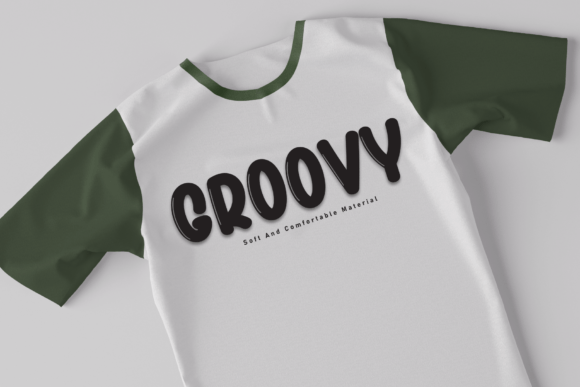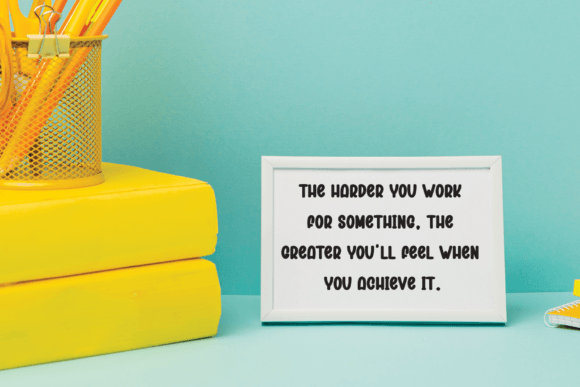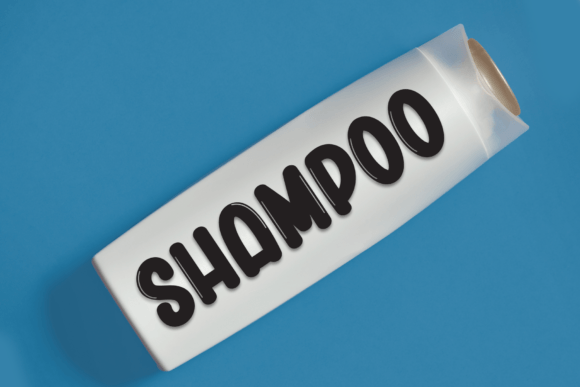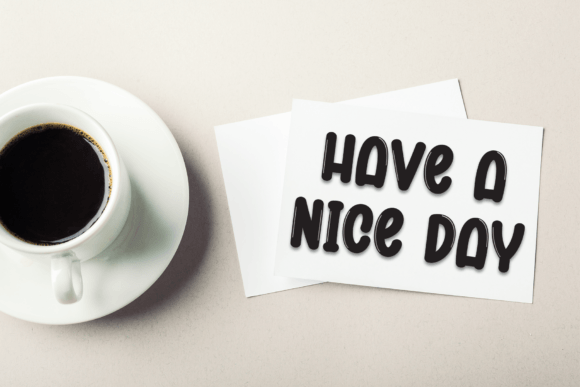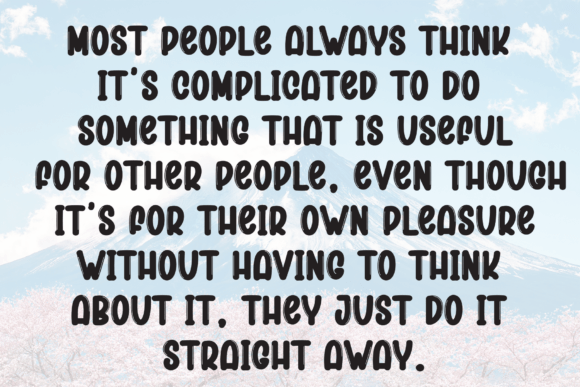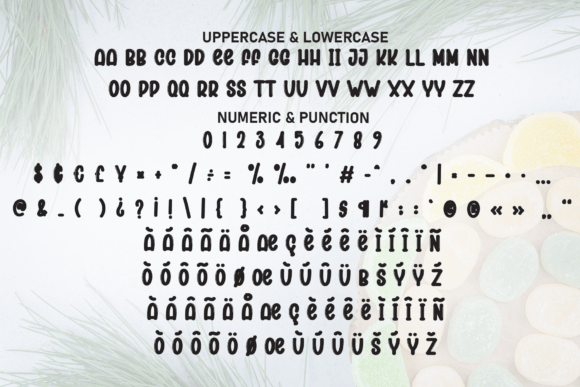
Candy Winter Font: Add a Spark of Fun to Your Designs
Are you looking for a font that can add a dash of fun and personality to your designs? Look no further than Candy Winter Font! This fun and shiny display font is perfect for making your designs stand out, whether you’re creating posters, cards, or party invitations. In this article, we’ll take a closer look at Candy Winter Font and explore its features, benefits, and uses.
What is Candy Winter Font?
Candy Winter Font is a bold and eye-catching display font that is designed to sparkle with personality. Its fun and shiny letters are perfect for grabbing attention and adding a touch of whimsy to your designs. The font is ideal for use in a variety of design projects, from posters and flyers to cards and invitations.
Key Features of Candy Winter Font
- Bold and eye-catching letters: Candy Winter Font features bold and eye-catching letters that are sure to grab attention.
- Fun and shiny design: The font has a fun and shiny design that adds a touch of personality to your designs.
- Perfect for display purposes: Candy Winter Font is designed specifically for display purposes, making it perfect for use in posters, flyers, and other eye-catching designs.
- Easily readable: Despite its bold and decorative design, Candy Winter Font is easily readable, making it perfect for use in a variety of design projects.
Benefits of Using Candy Winter Font
There are many benefits to using Candy Winter Font in your designs. Here are just a few:
- Adds personality to your designs: Candy Winter Font adds a touch of personality and whimsy to your designs, making them stand out from the crowd.
- Perfect for festive designs: The font’s fun and shiny design makes it perfect for use in festive designs, such as holiday cards and party invitations.
- Easy to use: Candy Winter Font is easy to use and can be easily integrated into your design projects.
- Versatile: The font is versatile and can be used in a variety of design projects, from posters and flyers to cards and invitations.
Uses of Candy Winter Font
Candy Winter Font is a versatile font that can be used in a variety of design projects. Here are just a few ideas:
- Posters and flyers: Use Candy Winter Font to create eye-catching posters and flyers that grab attention.
- Cards and invitations: The font is perfect for use in cards and invitations, adding a touch of personality and whimsy to your designs.
- Party decorations: Use Candy Winter Font to create festive party decorations, such as banners and garlands.
- Social media graphics: The font is perfect for use in social media graphics, such as Facebook posts and Instagram stories.
Tips for Using Candy Winter Font
Here are a few tips for using Candy Winter Font in your designs:
- Use it sparingly: While Candy Winter Font is eye-catching and fun, it can be overwhelming if used too much. Use it sparingly to add a touch of personality to your designs.
- Pair it with other fonts: Pair Candy Winter Font with other fonts to create a unique and interesting design.
- Experiment with colors: The font looks great in a variety of colors, so experiment with different colors to find the one that works best for your design.
Candy Winter Font is a fun and shiny display font that is perfect for making your designs stand out. With its bold and eye-catching letters, fun and shiny design, and versatility, it’s the perfect font for designers and crafters looking to add a touch of personality to their designs. Whether you’re creating posters, cards, or party invitations, Candy Winter Font is sure to sparkle with personality and grab attention.